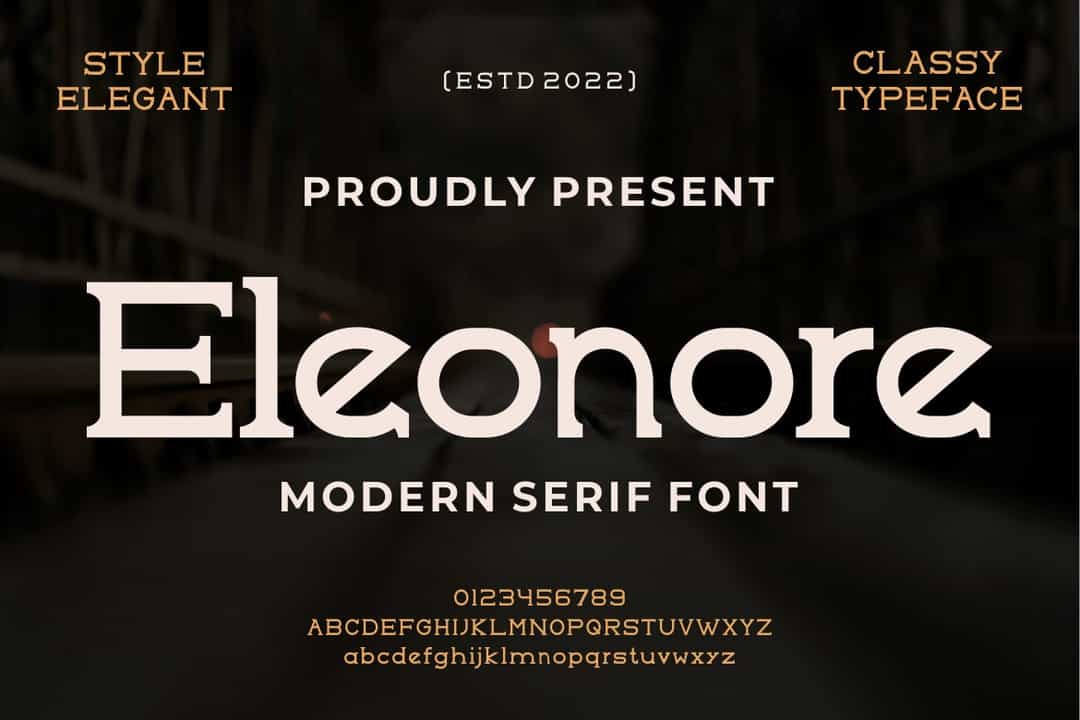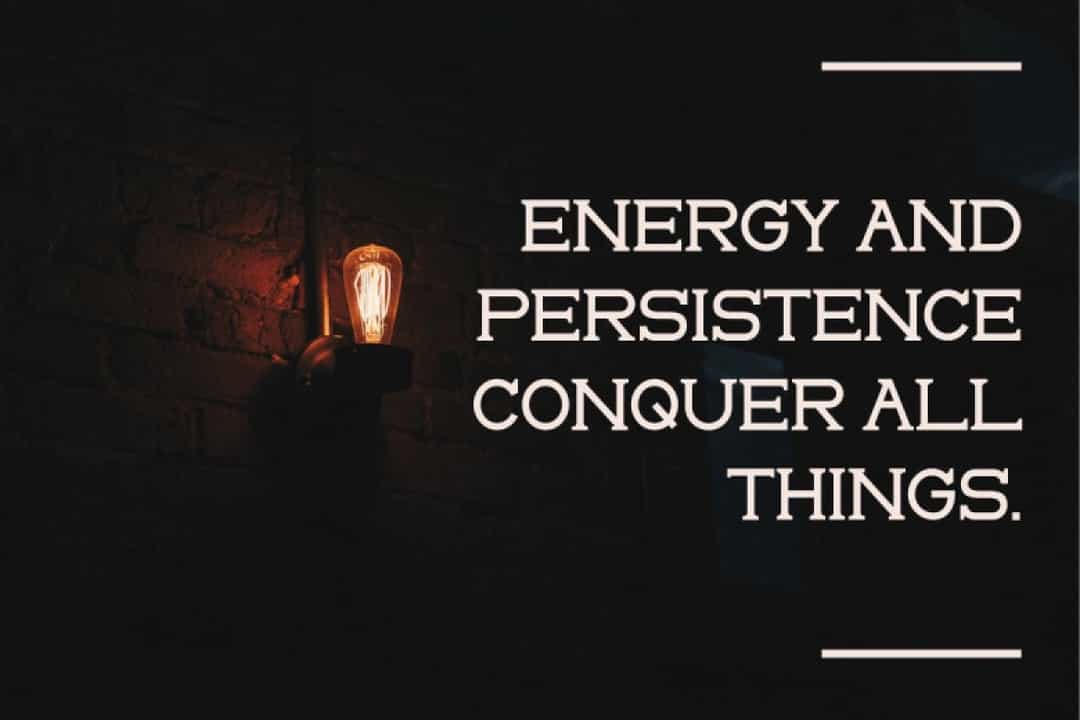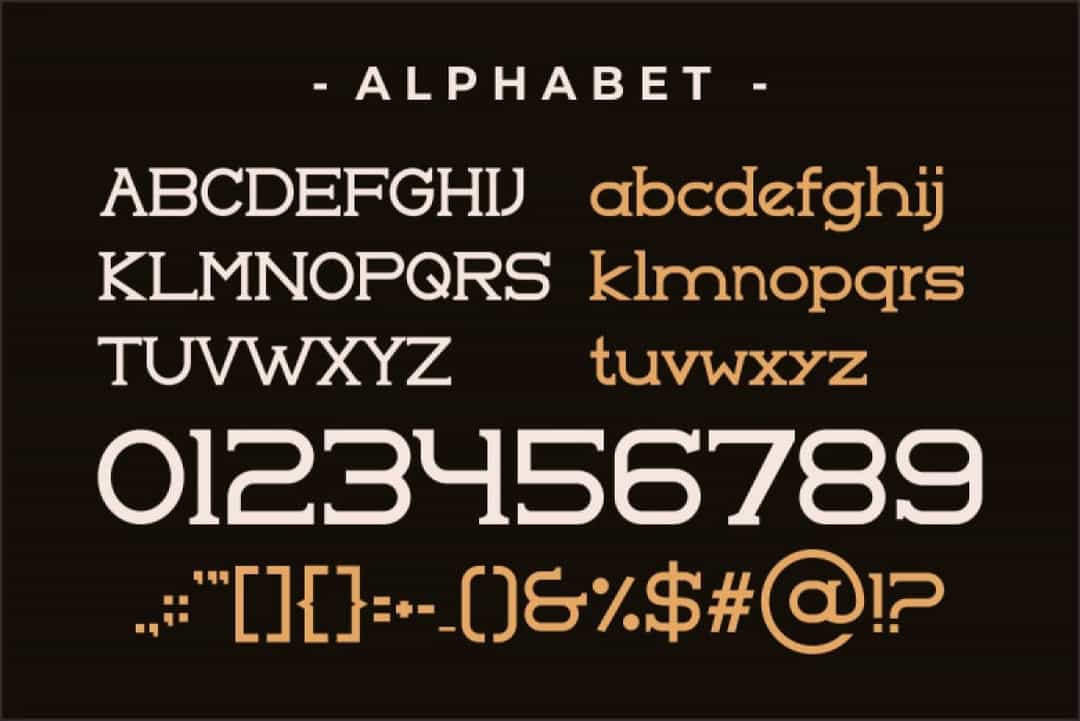
Eleonore is an attractive and modern serif font. No matter the subject matter, Eleonore can make any design more eye-catching with its stylish aesthetic and modern appeal. Eleonore would make an excellent addition to your font library and will add visual interest and depth to your designs.